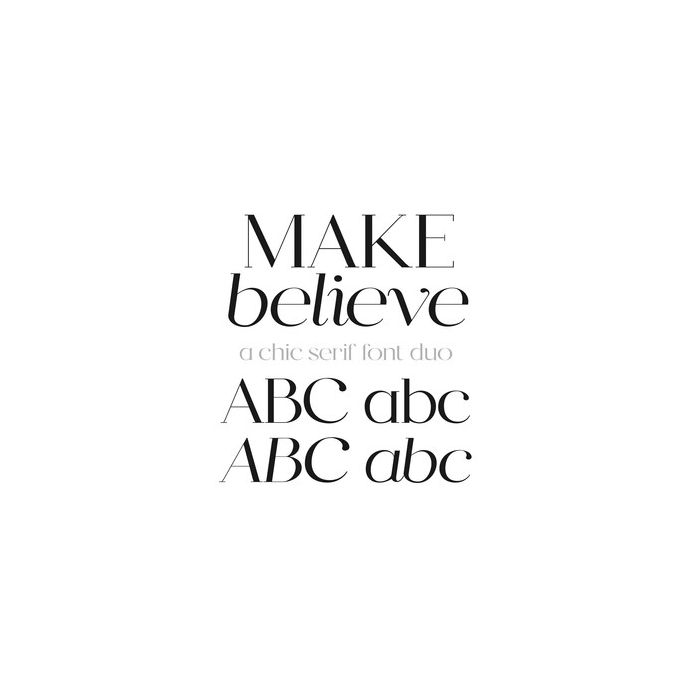
Make Believe is a chic serif font - includes regular version and italics. This font is perfect for your professional designs, packaging, logos, quotes, social media and more!